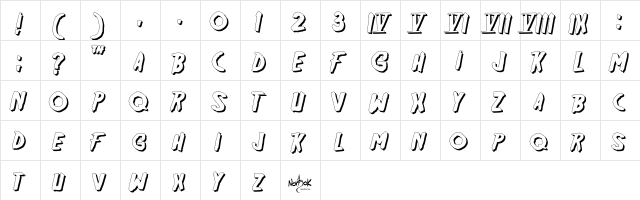
Friday13SH Regular
| Designer | Thomas W.Otto |
Design Context for Friday13SH Typeface
Friday13SH is a composed and adaptable typeface that performs quietly and consistently across a wide range of design contexts.